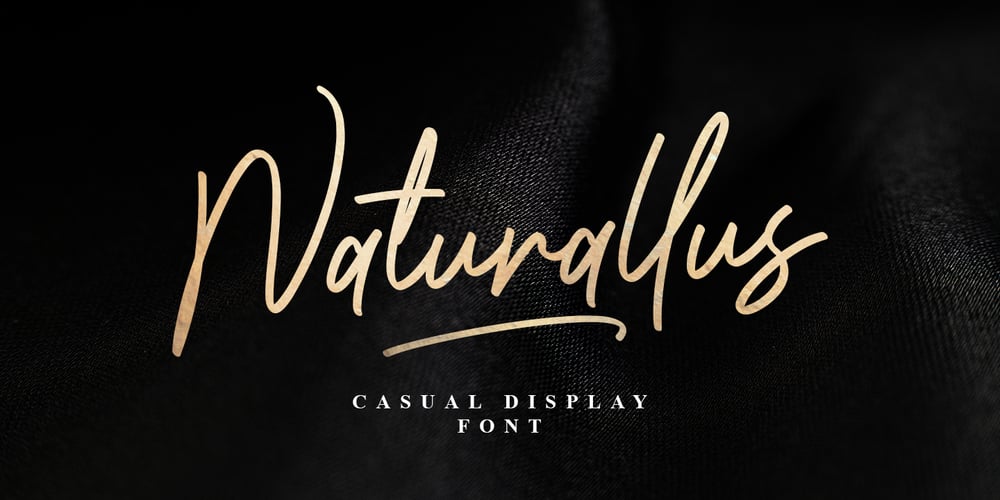
Naturallus
Naturallus font
Naturallus Font Family was designed by Muhammad Mujibulloh and published by MJB Letters. Naturallus contains 1 styles and family package options. Naturallus is a Casual display font which is very perfect for branding, signature, wedding designs, social media ads, logos and othersNaturallus includes full set of uppercase and lowercase letters, numeral, punctuations and ligatures.Included in this set: Works on PC & Mac Simple installations Accessible in the Adobe Illustrator, Adobe Photoshop, Adobe InDesign, even work on Microsoft Word. PUA Encoded Characters Fully accessible without additional design software